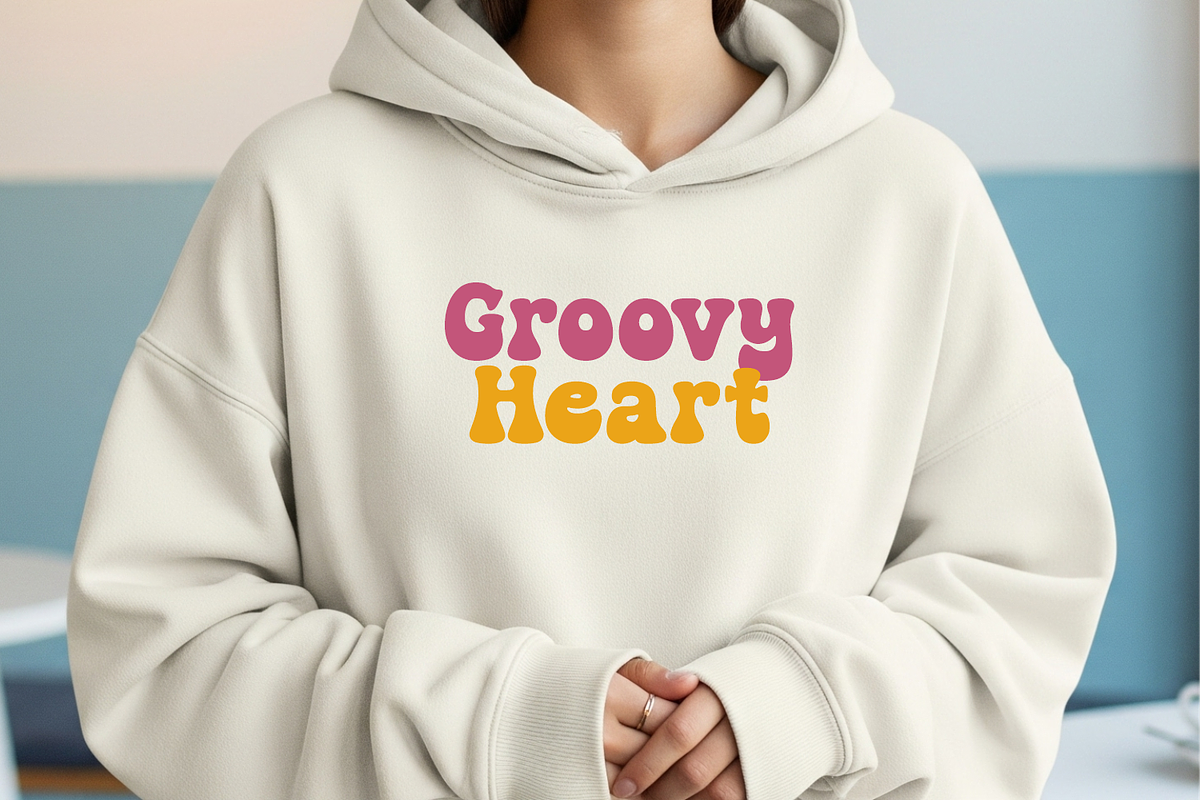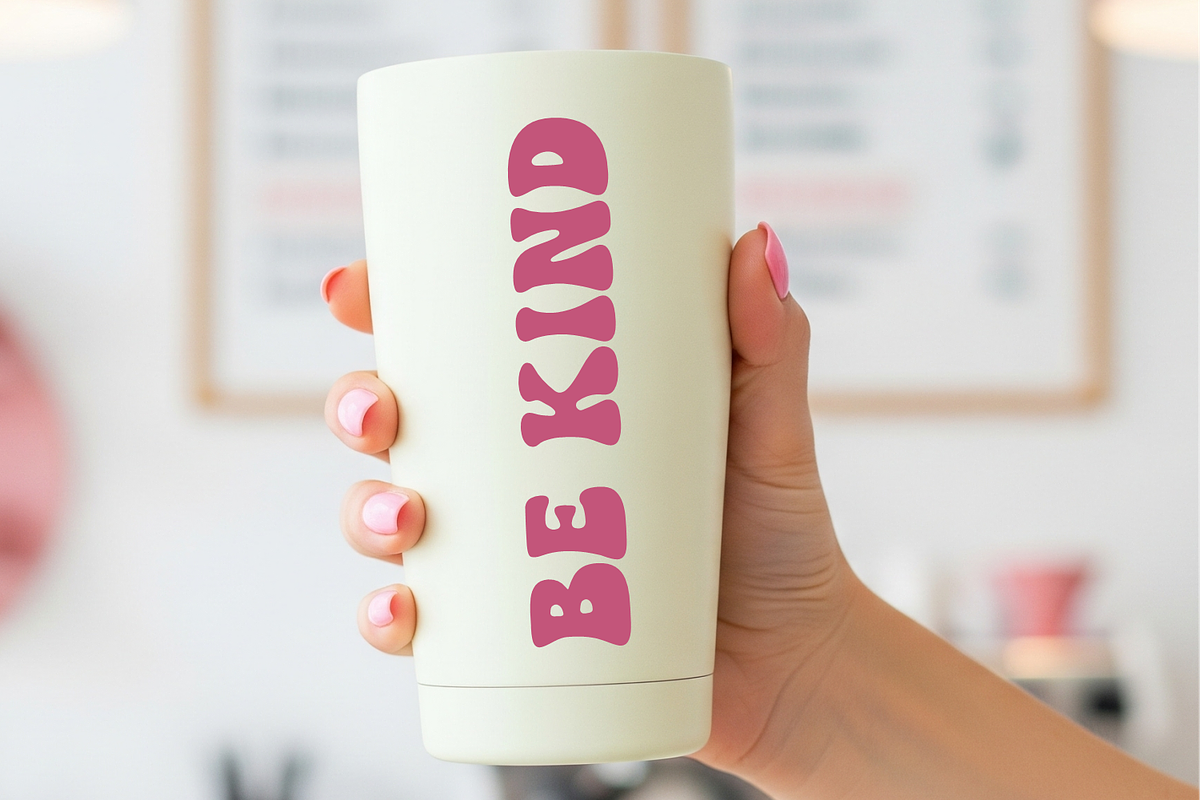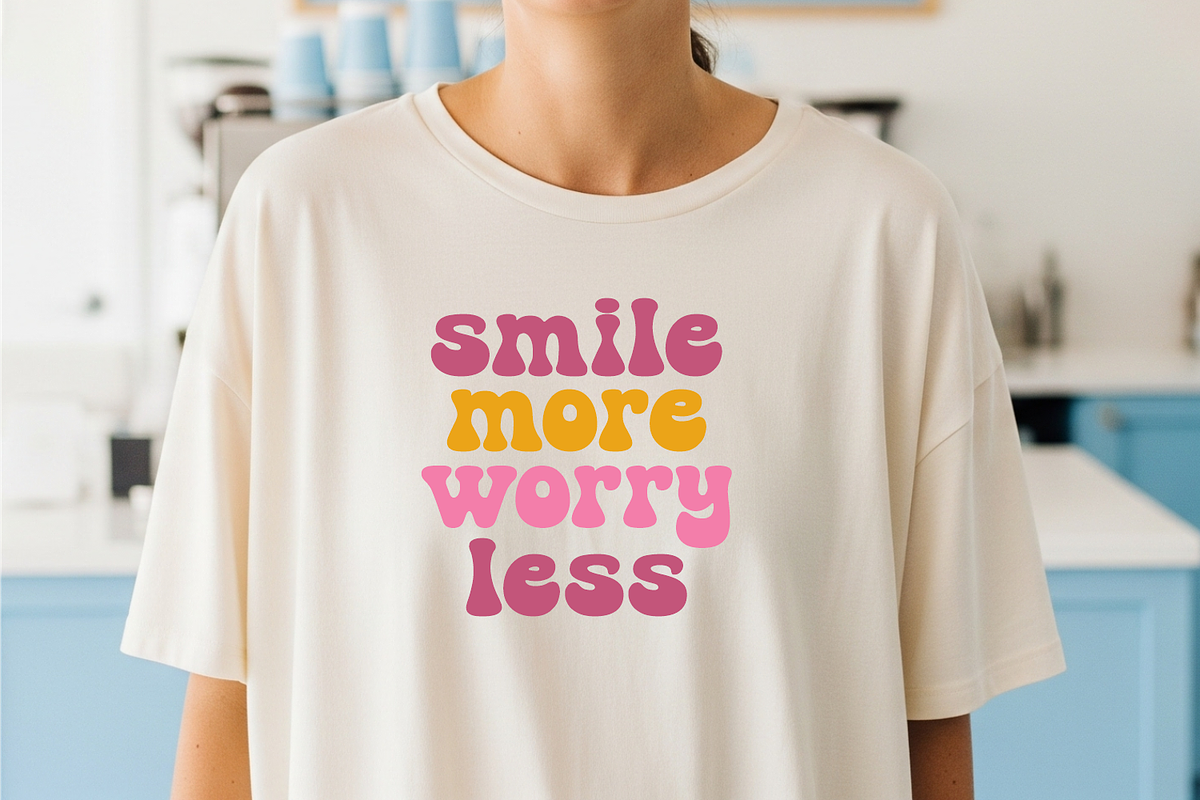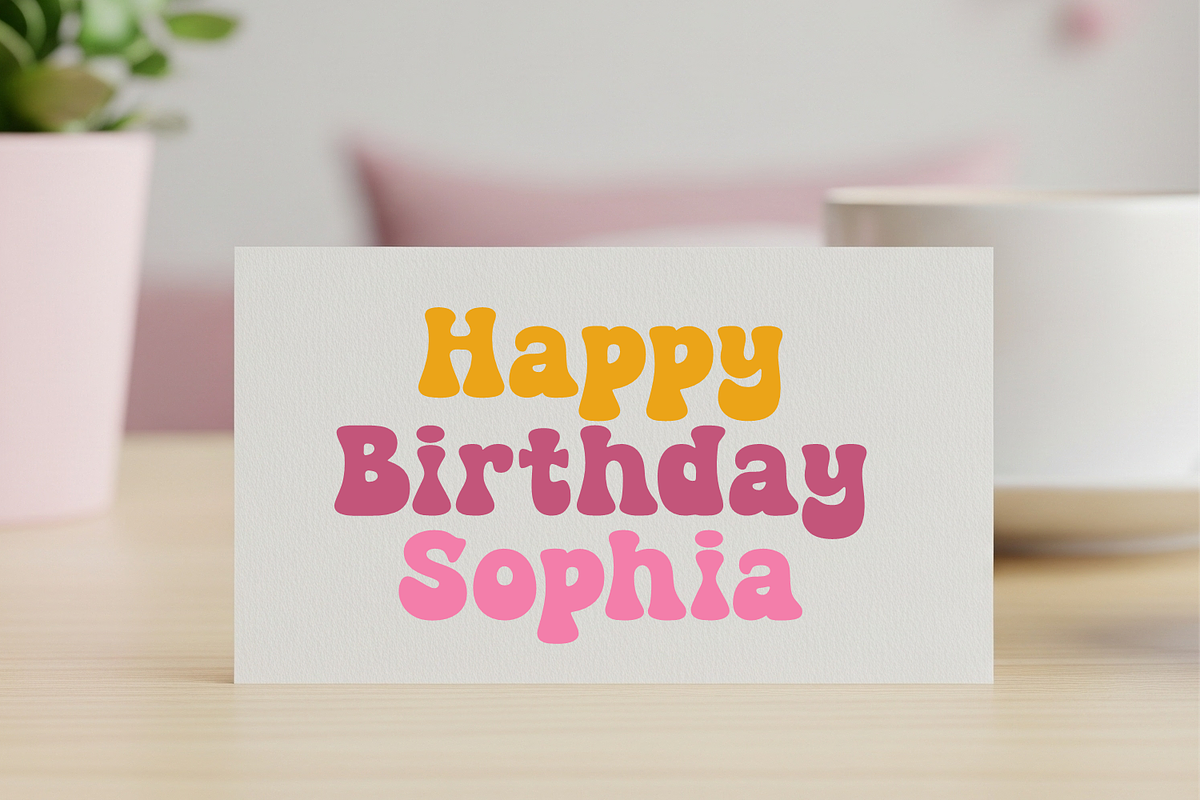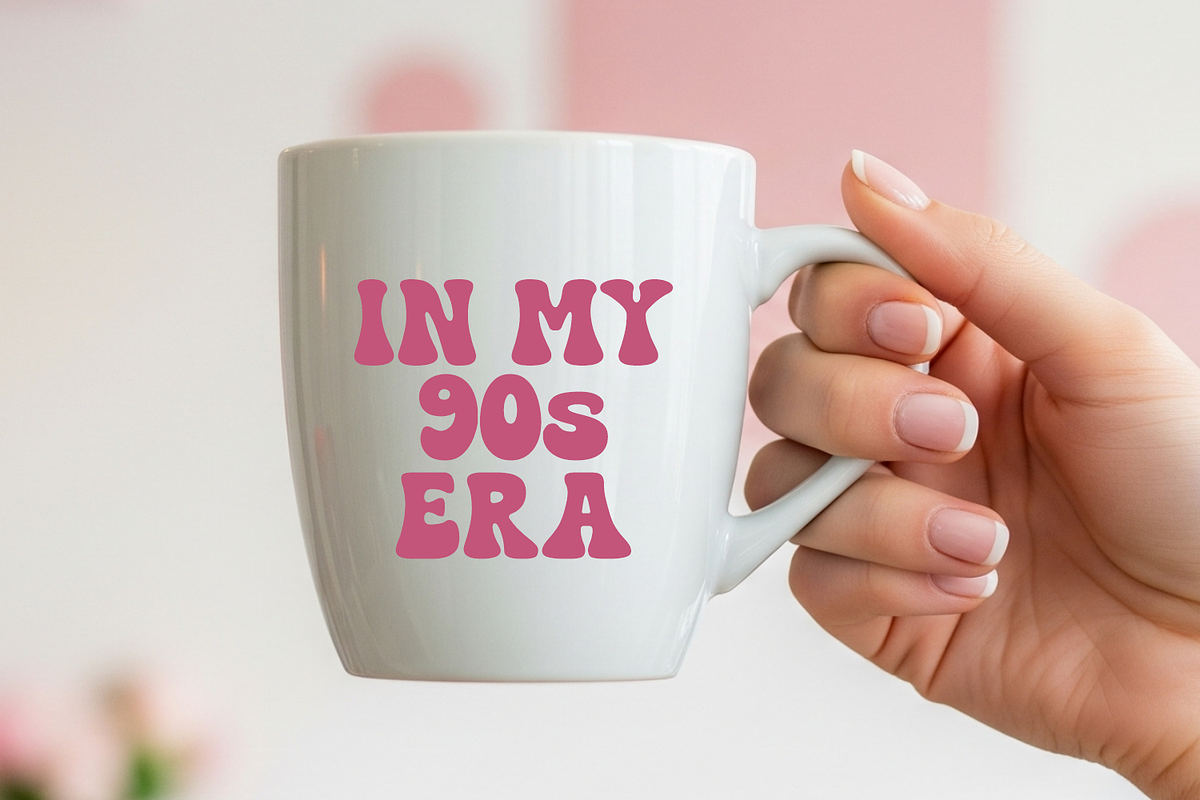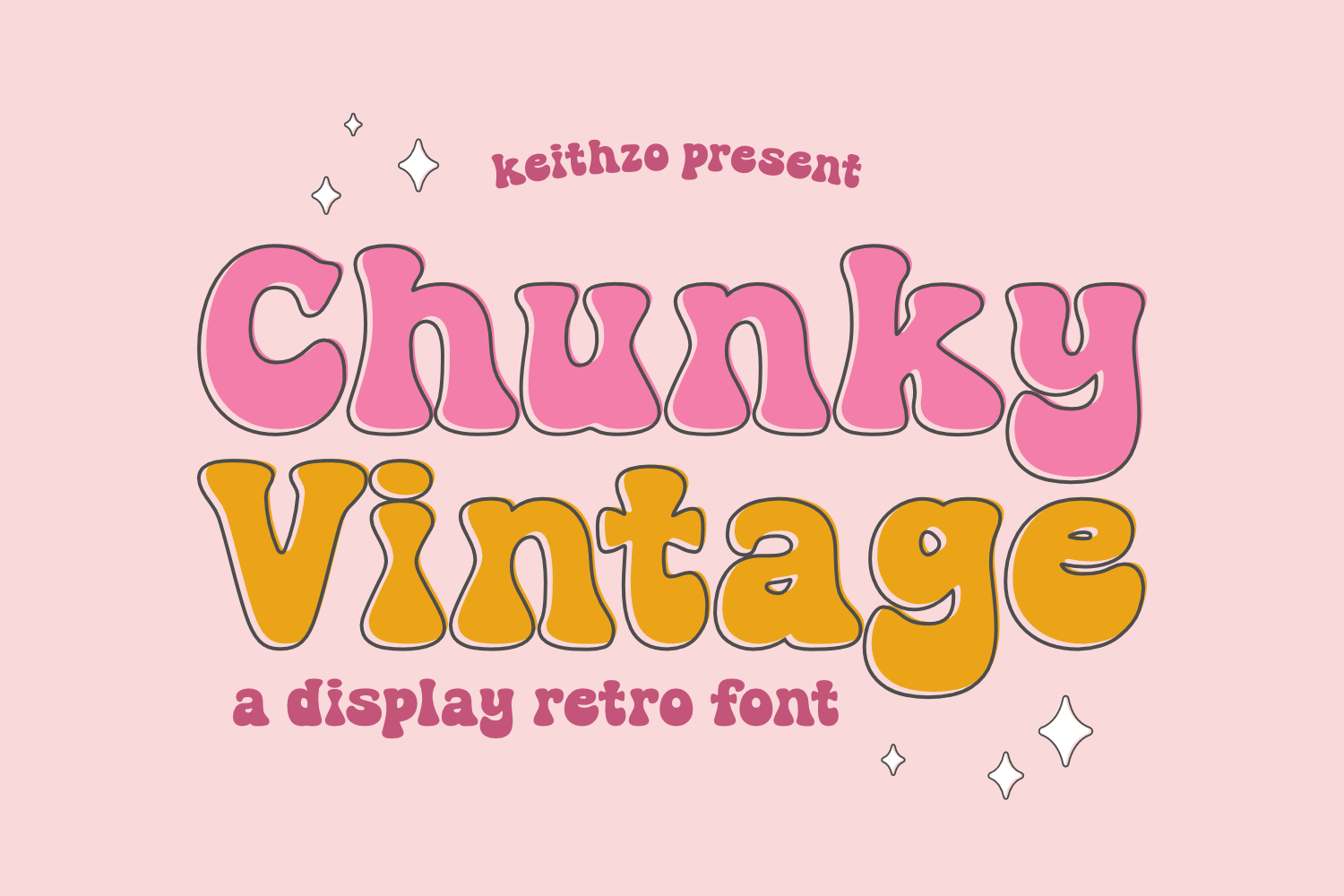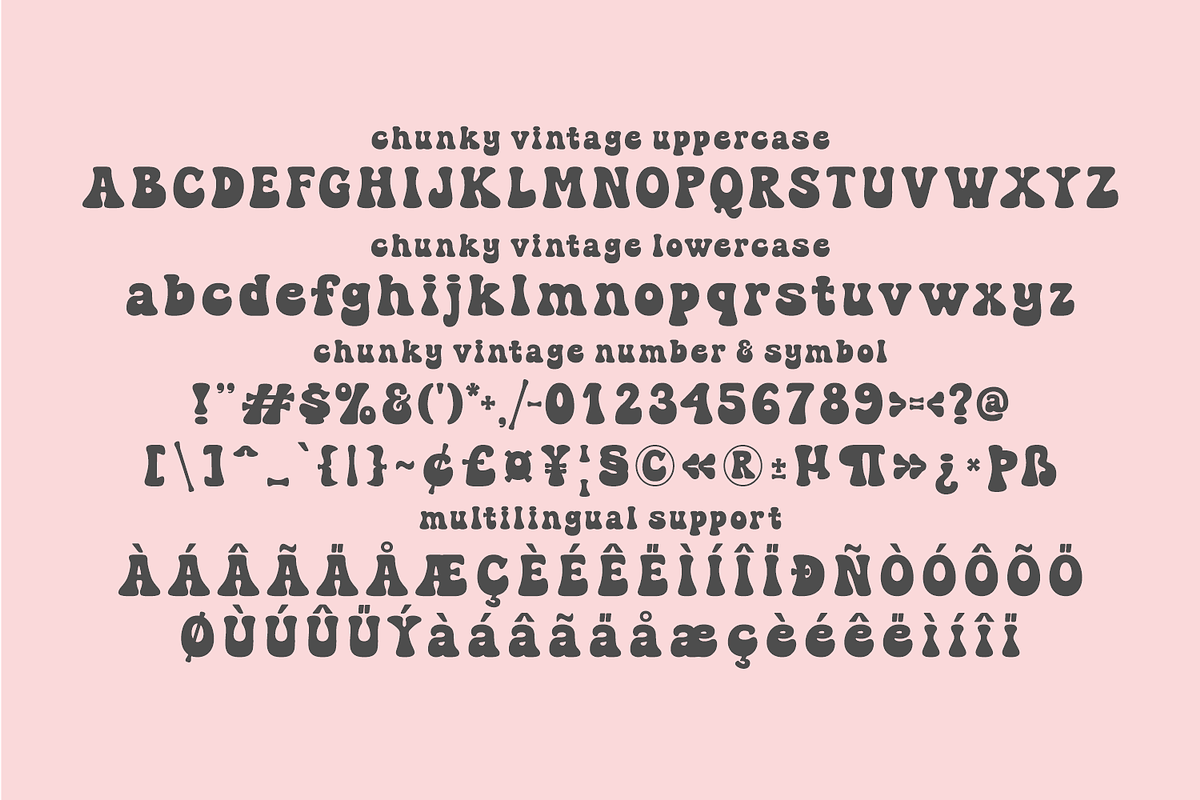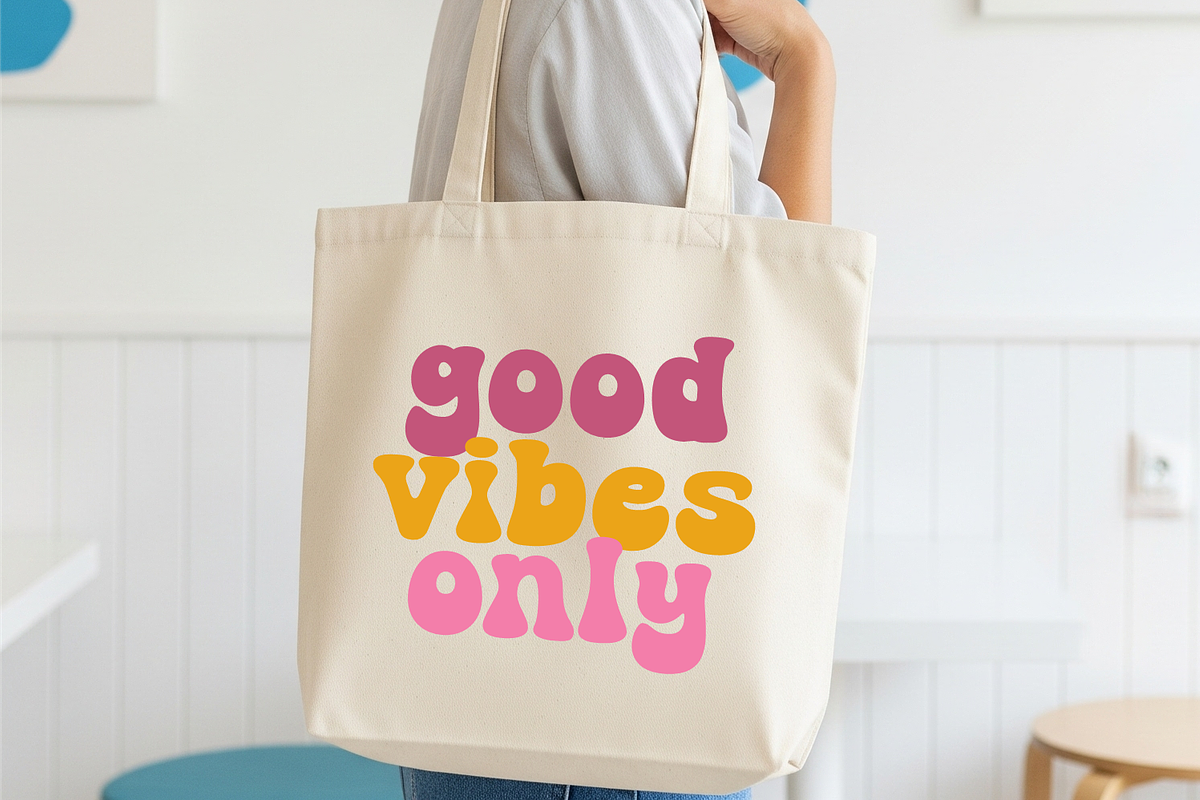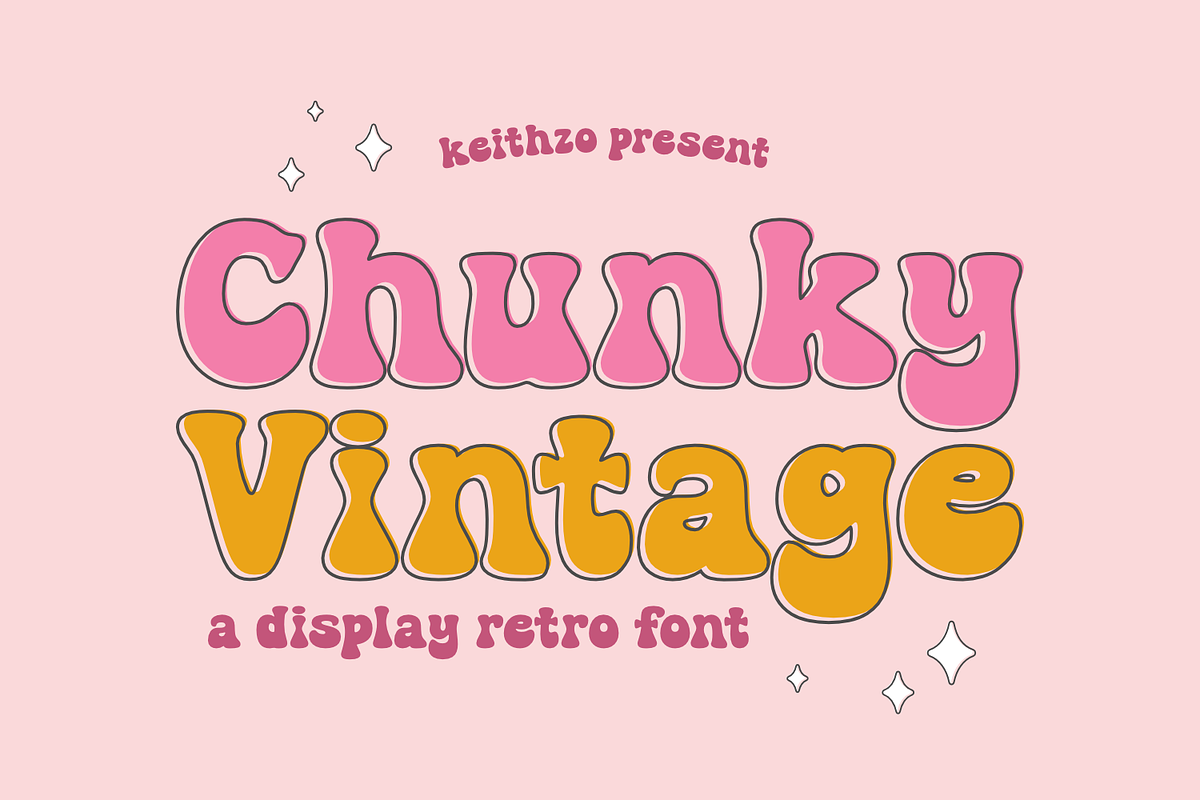
Chunky Vintage - Retro Font
Step into the past and embrace nostalgia with Chunky Vintage, an unmistakably bold display font that embodies the colorful ethos of the retro age while retaining a contemporary and commanding impact. Characterized by its robust, rounded strokes and hefty weight, this font commands an undeniable visual prowess, making it the go-to option for designers seeking text that fuses a classic and playful charisma. Its distinct fusion of vintage allure and audacious bubble aesthetics make every word pop with vivacious energy and undeniable personality. Whether you’re channeling the infectious dynamism of a 70s disco or the edgy cool of 90s street culture, Chunky Vintage ensures every expression is rich in character and full of life.